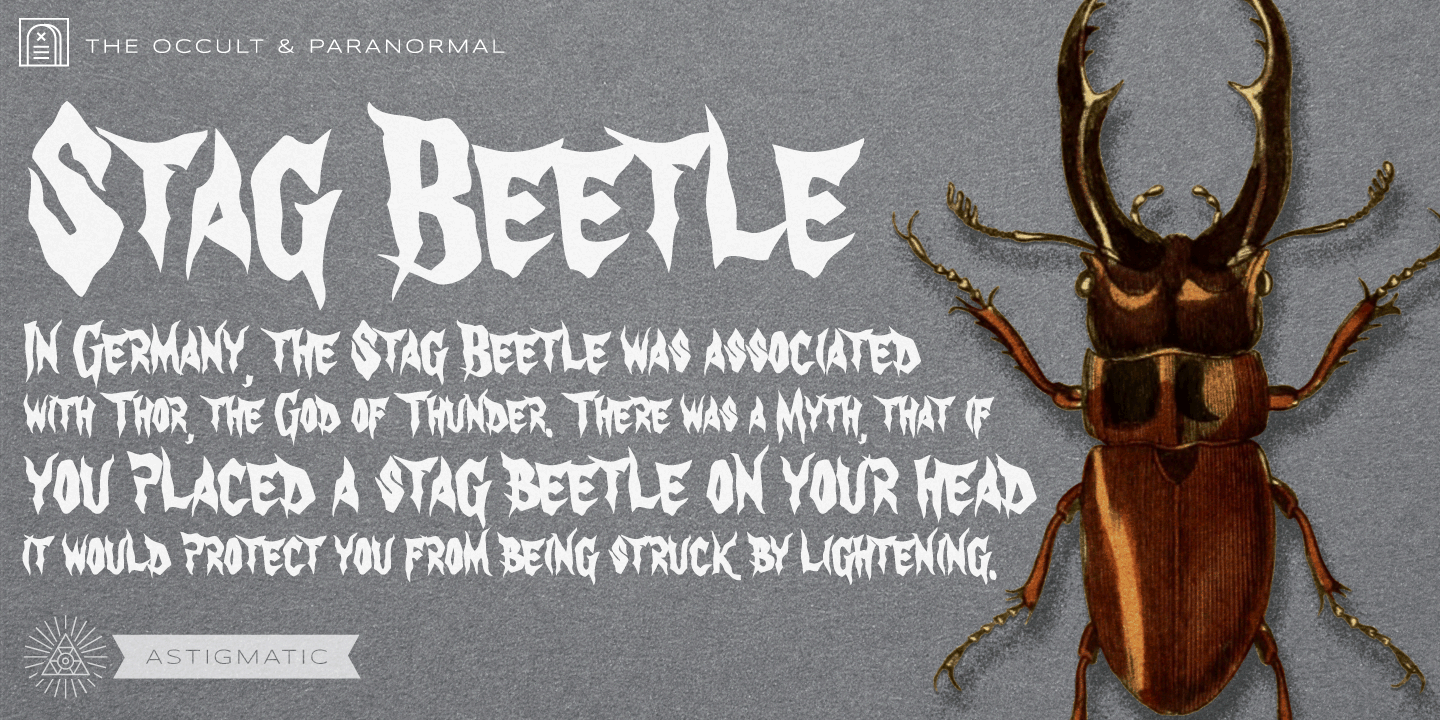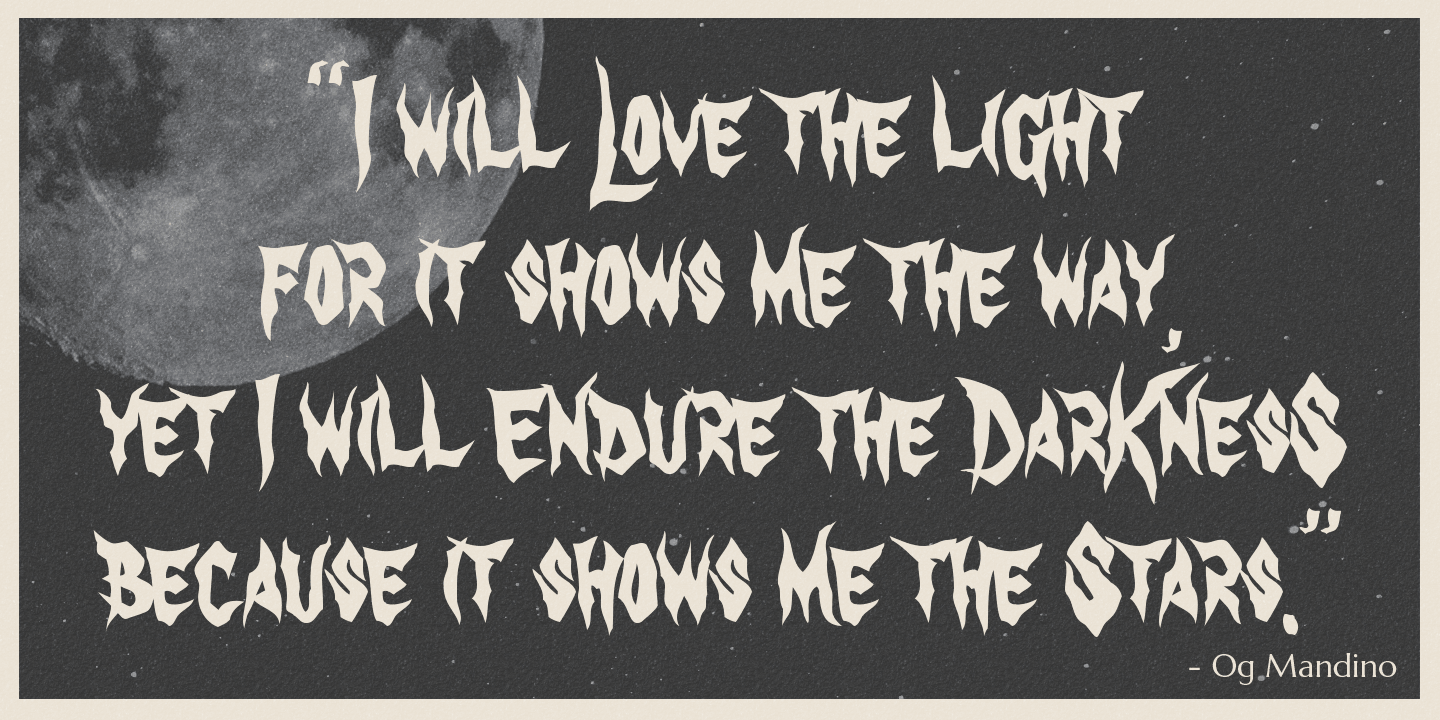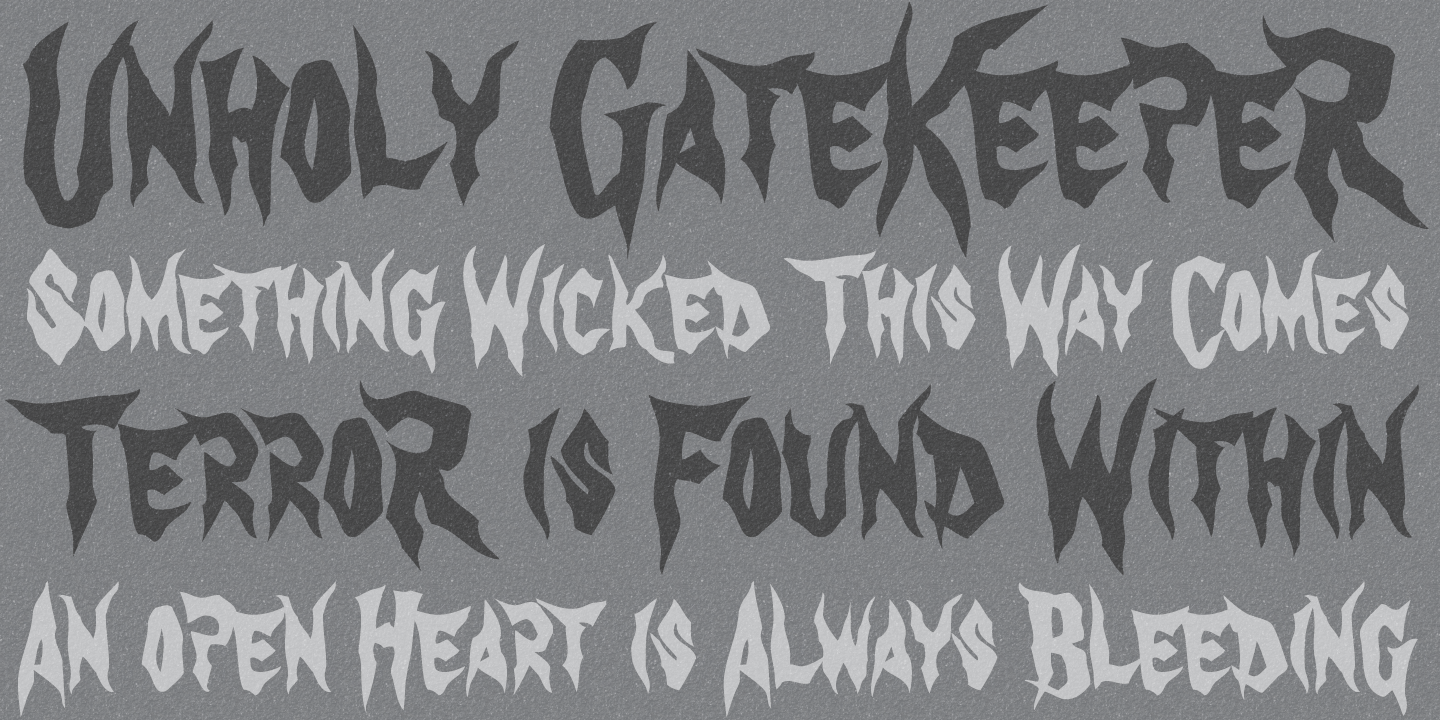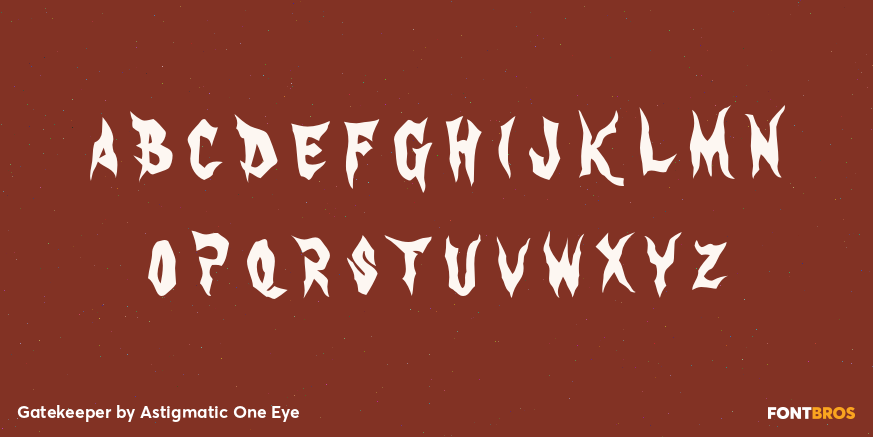
Gatekeeper
Font Family by Astigmatic One Eye
The GateKeeper typeface was inspired by old horror movies, and the various poster typography that went with them. A loose and pointy typestyle, GateKeeper embodies the dark side of typography, with a creepy and on edge feeling. Usable for any occassion, but most suitable for dark matter.